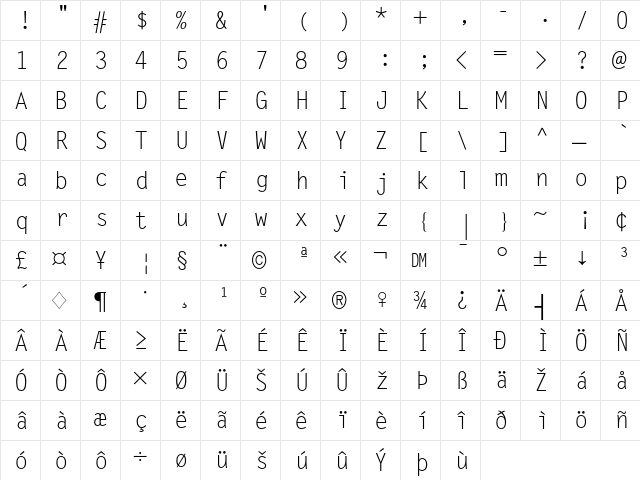
Letter Gothic Regular
Design Context for Letter Gothic Typeface
Letter Gothic has the quiet confidence of well-executed sans-serif typography: versatile, unobtrusive, and dependable at any size.
Font Pairing: Works well alongside a characterful serif or display font that can carry the expressive load while Letter Gothic handles the functional copy.
Pro Tip: Pair Letter Gothic with a display or serif font for headlines — its neutral character makes it an excellent supporting player in complex typographic systems.